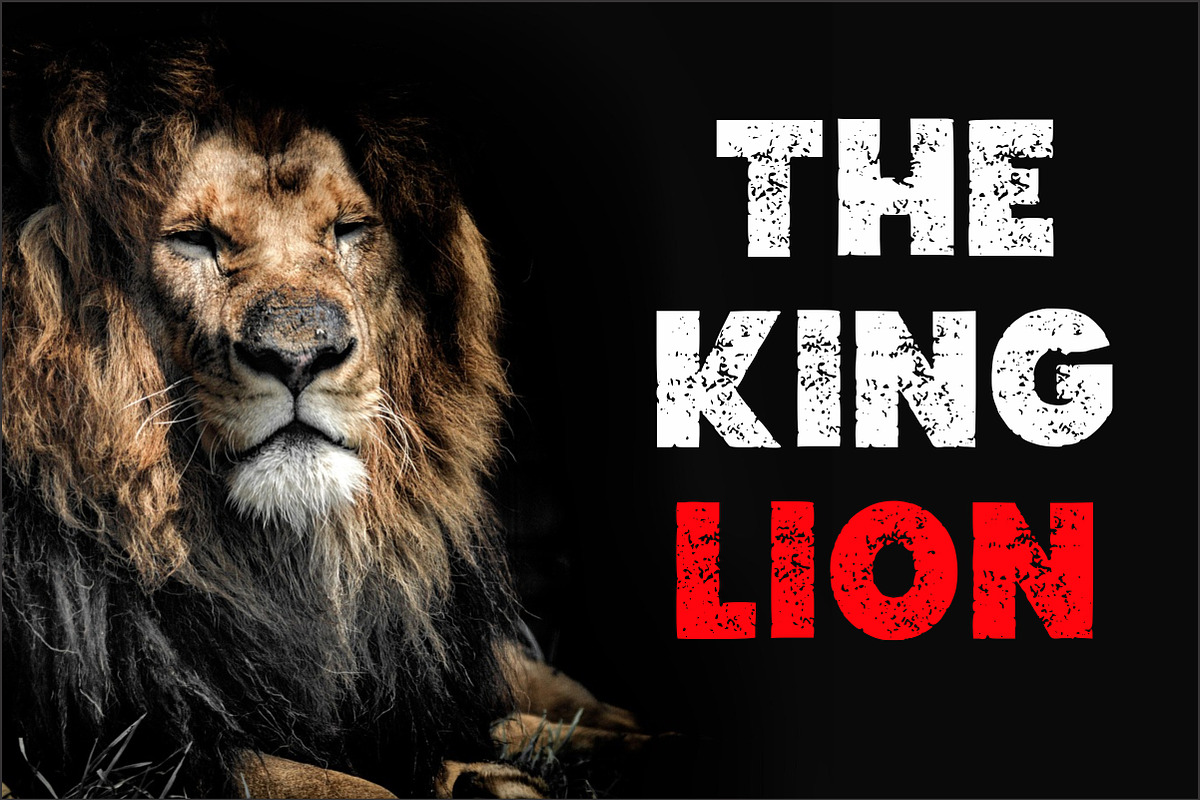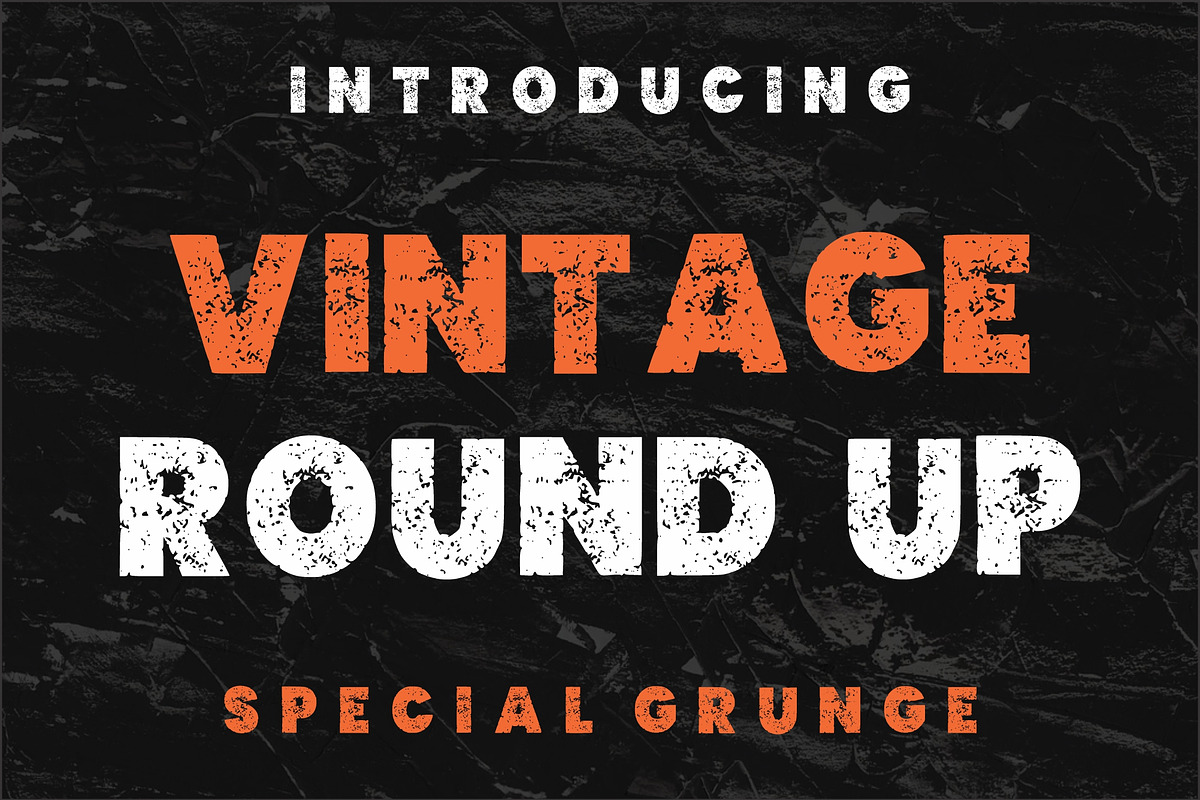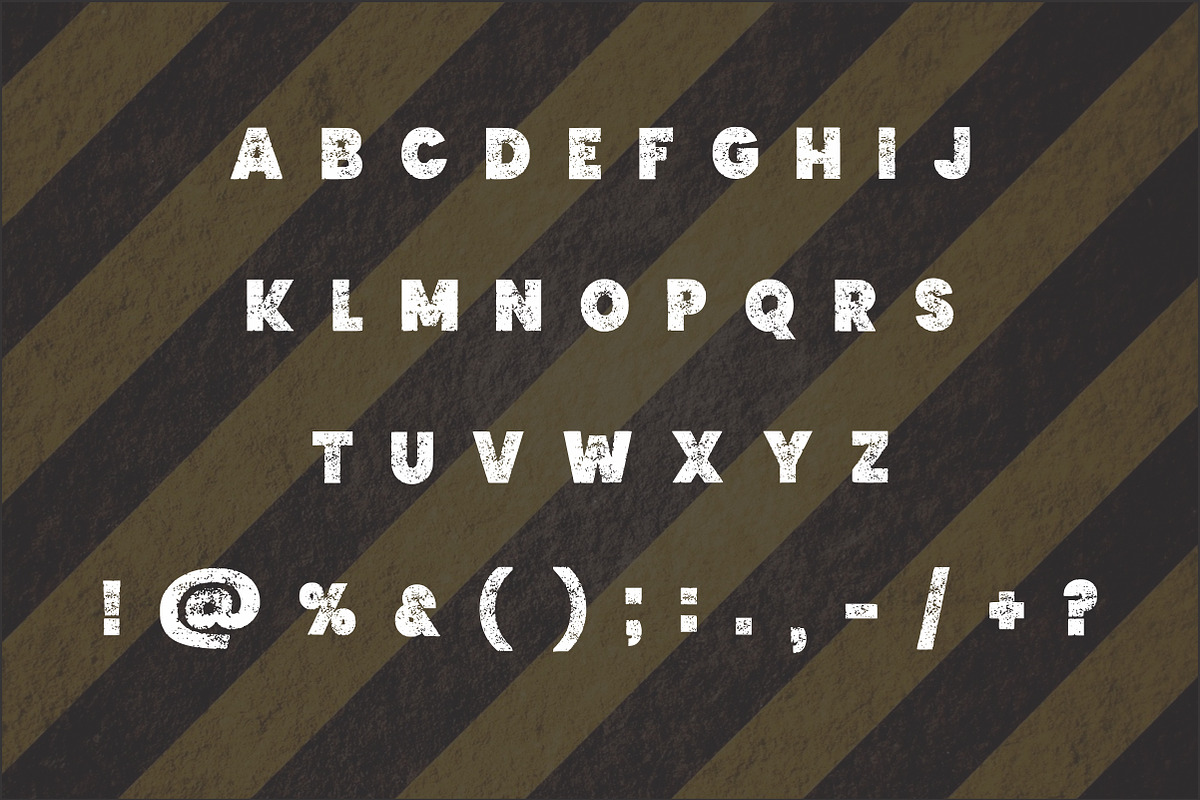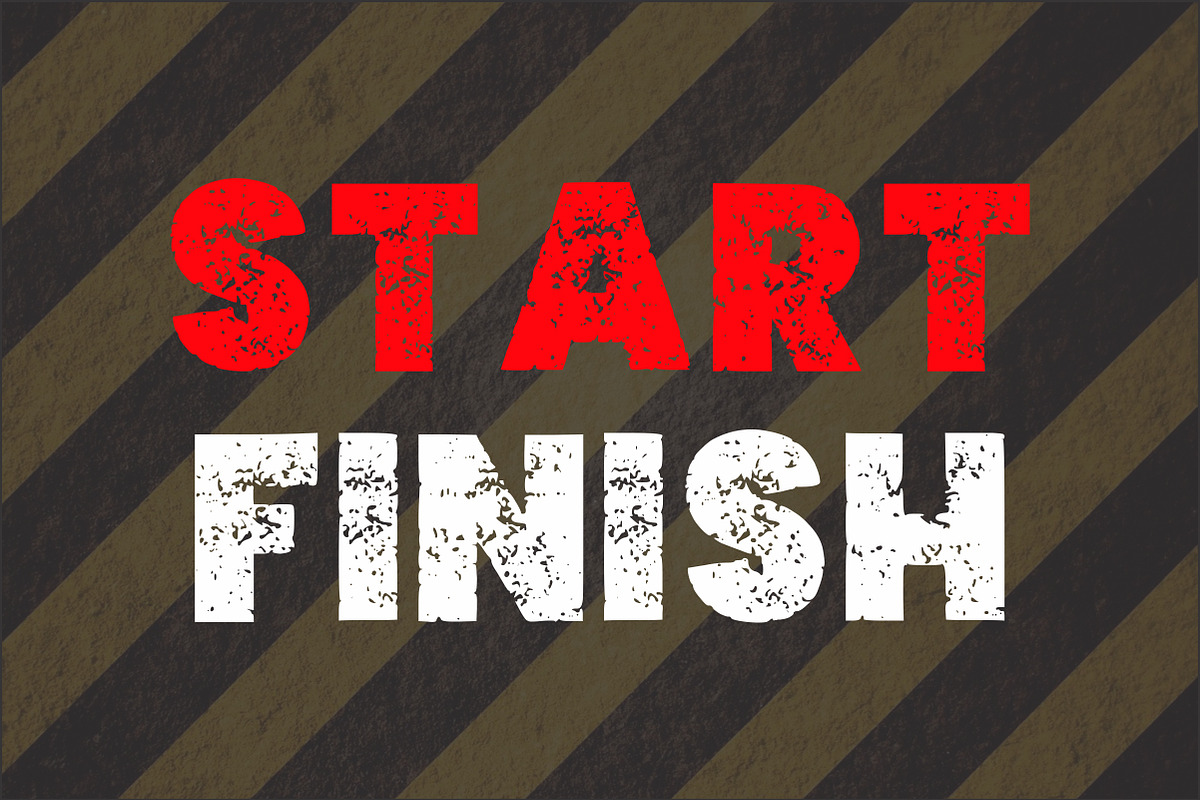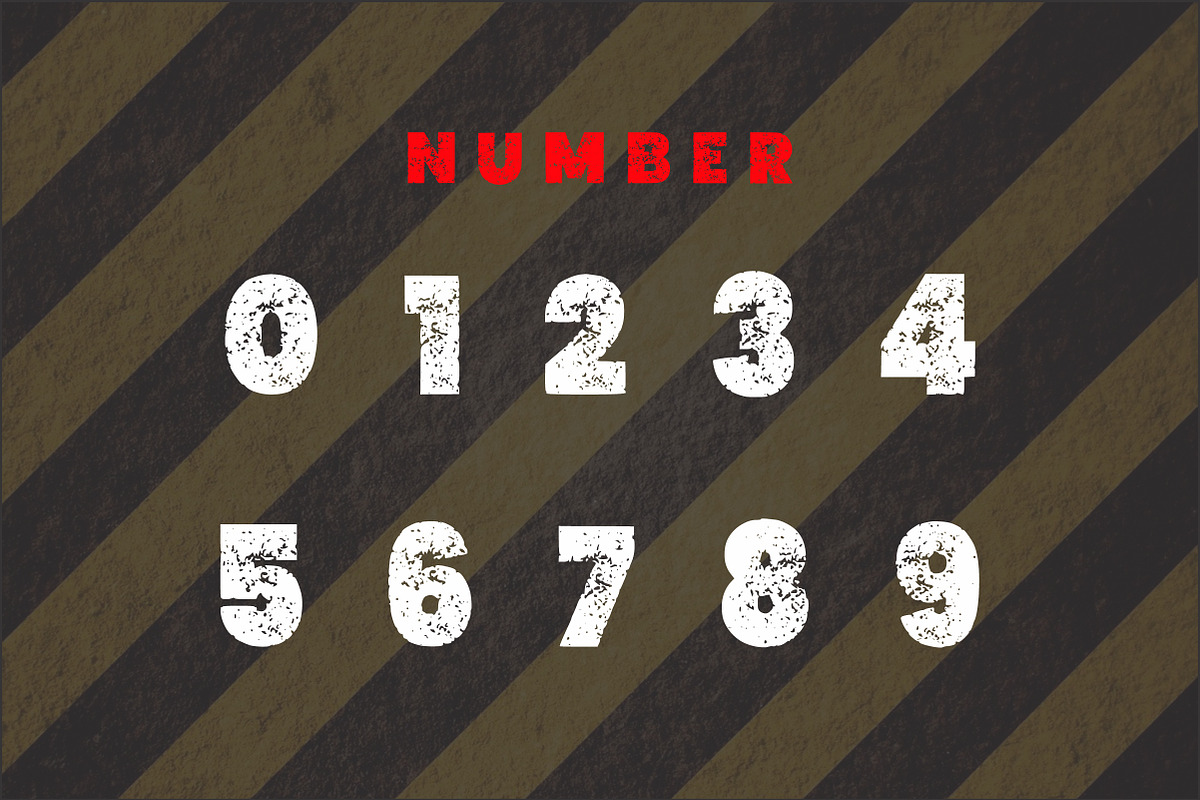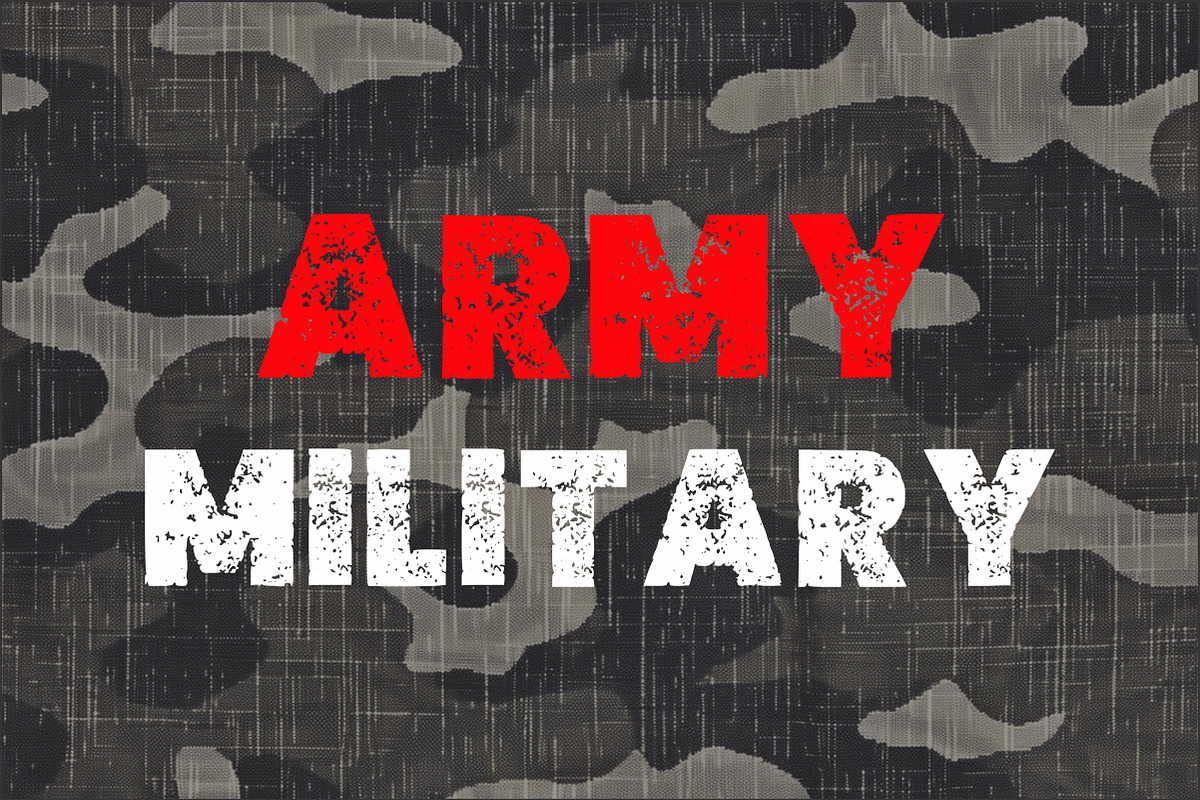
Vintage Round Up
💥 Unleash the raw energy of the past with VINTAGE ROUND UP – Special Grunge Font!
This bold, all-caps display typeface captures the spirit of vintage signage, distressed screen prints, and hard-hitting retro design. Featuring a powerful, chunky structure combined with a heavily textured, grunge effect, this font is perfect for any project that needs an immediate, attention-grabbing impact and an authentically worn-out feel.
Whether you’re designing merchandise, posters, album covers, gaming logos, or apparel, VINTAGE ROUND UP delivers undeniable grit and vintage cool.